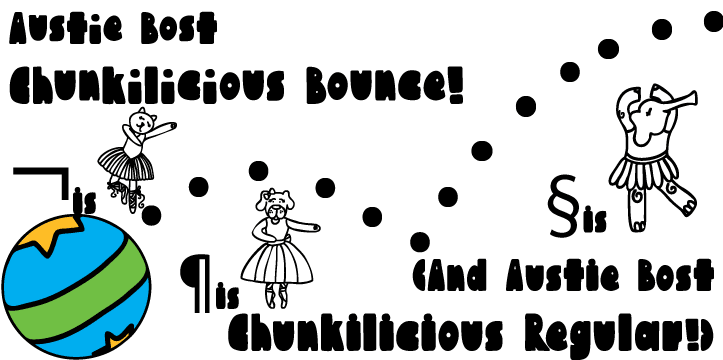
Austie Bost Chunkilicious is a kids font family. This typeface has two styles and was published by Austie Bost Fonts.
A two font family. This contains every font in the Austie Bost Chunkilicious Family.
Austie Bost Chunkilicious is a super fun, chunky handwritten font.